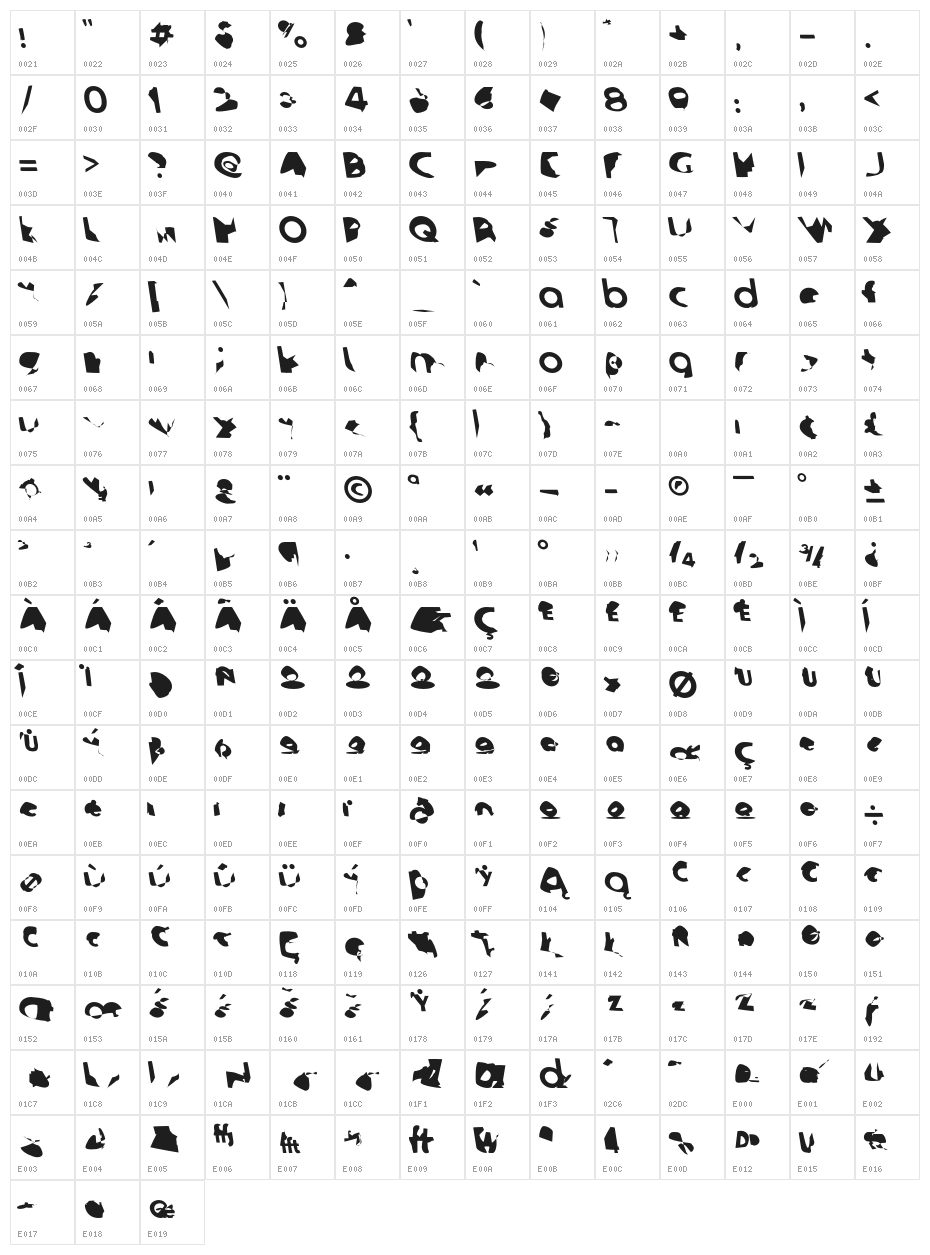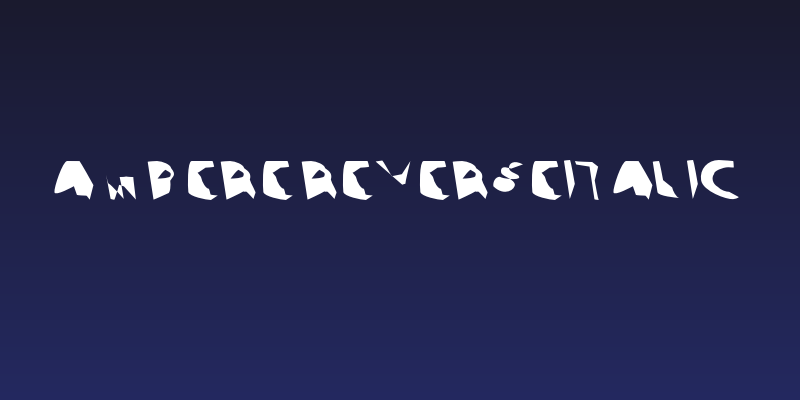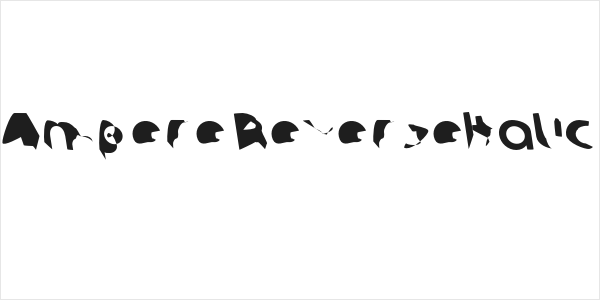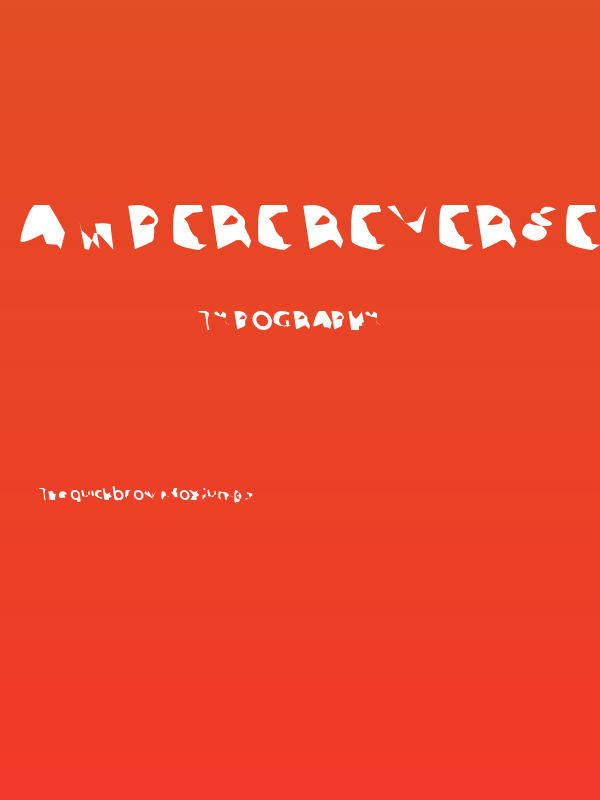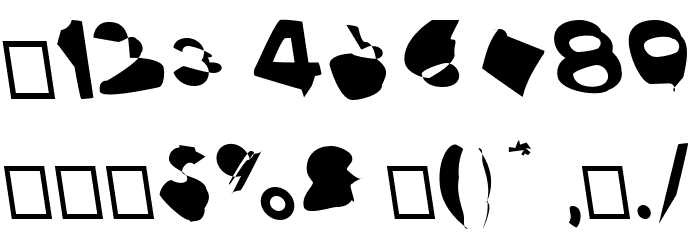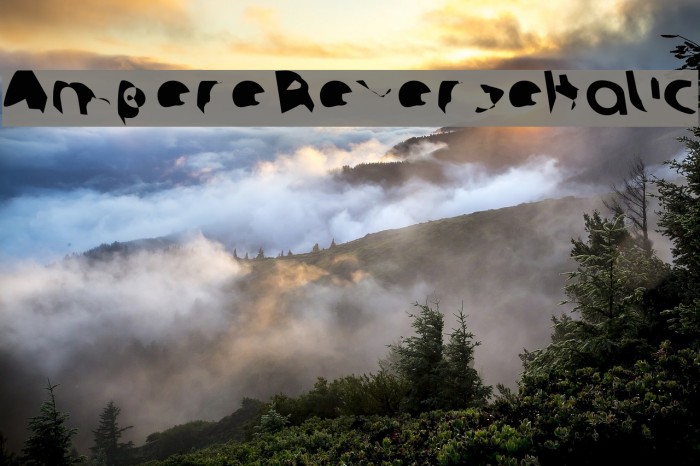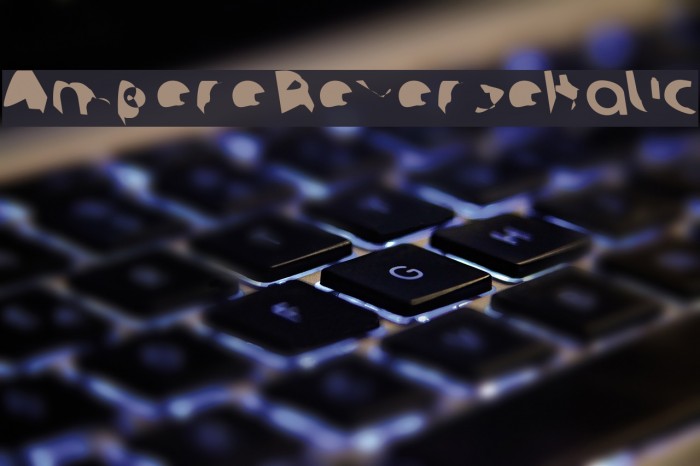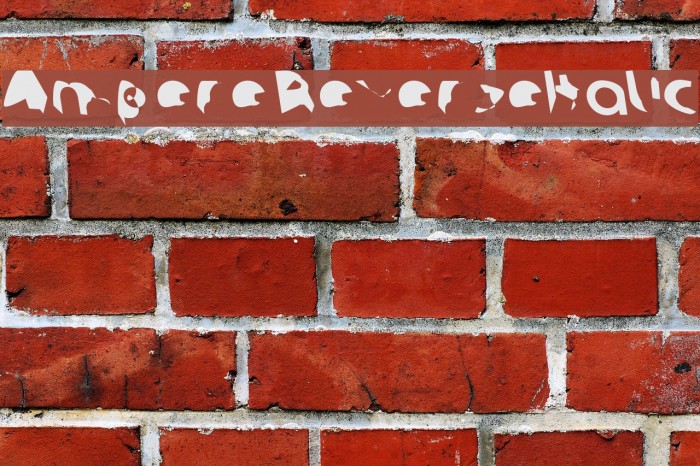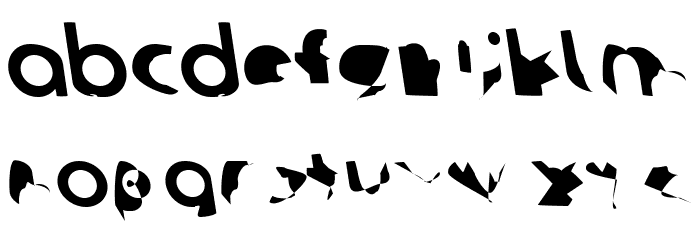
Ampere ReverseItalic Font
Ampere ReverseItalic Description
This font features a highly abstract and fragmented design, with each character appearing as if it has been shattered or distorted. The uppercase letters are bold and angular, with sharp edges and irregular shapes that create a sense of movement and chaos. The lowercase letters maintain this fragmented style, though they are slightly more rounded, providing a contrast to the sharpness of the uppercase. Numbers and special characters follow the same design principles, making the entire set cohesive yet unpredictable. This font is highly decorative and unconventional, making it suitable for artistic and avant-garde projects.
| Overall Style | Modern, Abstract |
| Use Case | Logos, Posters, Artistic Displays |
| Proposed Projects | Ideal for avant-garde art projects, experimental design work, or any creative endeavor that seeks to break traditional typographic norms. |